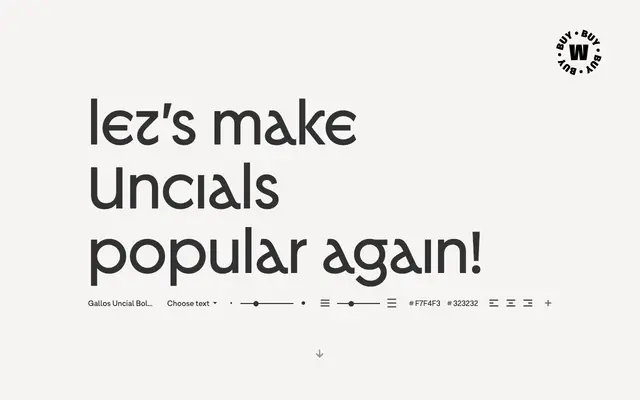
Gallos
W Type Foundry · Salvador Rodriguez Diego Aravena
An 18-style type family that fuses Uncial calligraphic tradition with geometric rationalism across two distinct subfamilies, one referencing Paul Renner's Architype models.
Gallos splits into two subfamilies, Gallos Uncial and Gallos Architype, differentiated by key letterforms including the 'a', 'r', 'm', 'n' and 'w'. The Uncial subfamily retains closed bowls and classical Uncial curves, while the Architype subfamily opens counters and introduces a stem-and-dot 'r' drawn from Renner's rationalist experiments. Both share curved strokes on the 'e' and 't', Gaelic-inflected 'K' and 'X' forms, and curved descenders that tie the system together across nine weights from Thin to Heavy.
Gallos is rooted in the Uncial script tradition, blending historical calligraphic letterforms with geometric rationalism and Gaelic influences, placing it firmly in the display category with a specialised uncial subcategory.